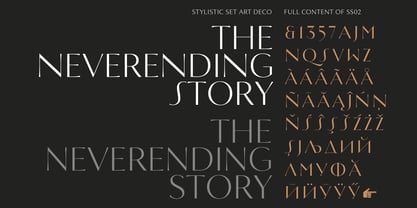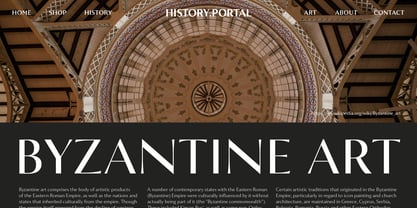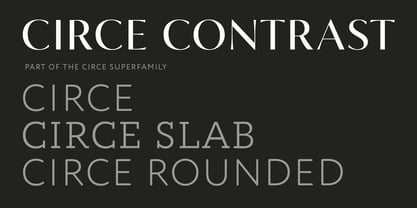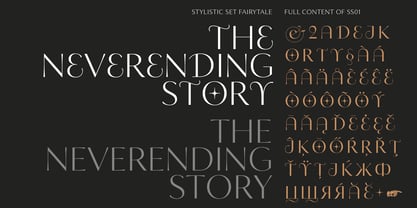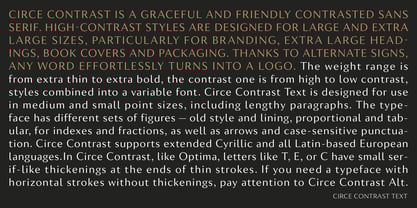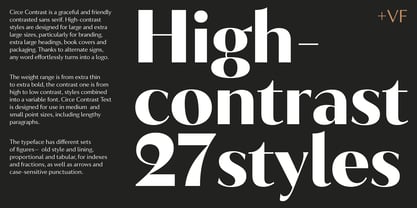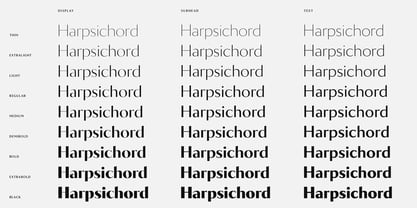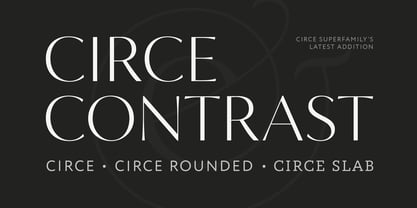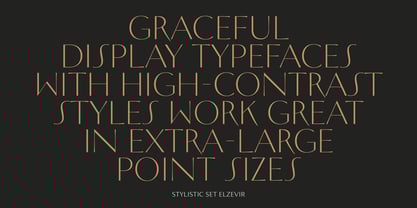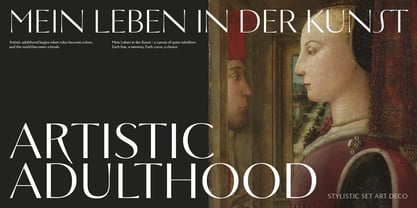
Circe Contrast
Circe Contrast is a graceful and inviting contrasted sans serif. Its high-contrast styles are intended for large and extra-large sizes—ideal for branding, bold headlines, book covers, and packaging. With a wide selection of alternate characters, almost any word can be effortlessly transformed into a logotype.
The family ranges from Extra Light to Extra Bold and includes contrast variations from ultra high to low, along with a fully functional variable font. Much like Optima, Circe Contrast features subtle flares at the ends of thin strokes in letters such as T, E, and C, evoking the elegance of serif details.
The typeface offers a wide variety of numeral styles—oldstyle and lining, proportional and tabular, figures for indices and fractions—plus arrows, case-sensitive punctuation, full coverage of European Latin-based languages, and extended Cyrillic support.
Circe Contrast also includes a wide range of stylistic alternates — some grouped into themed sets, such as an Art Deco-inspired set, an Elzevir-style set, and a whimsical Fairytale set, while others stand alone to offer even more flexibility in shaping the tone of your typography.
As a display typeface, Circe Contrast pairs beautifully with compact geometric sans serifs like Circe, Hint, and Stem, or with more neutral text serifs such as Circe Slab, Charter, or Newton. Circe Contrast Text, when used for body copy, complements humanist serifs and slab serif companions particularly well.
Circe Contrast was designed by Alexandra Korolkova, Isabella Chaeva, and Alexander Lubovenko.